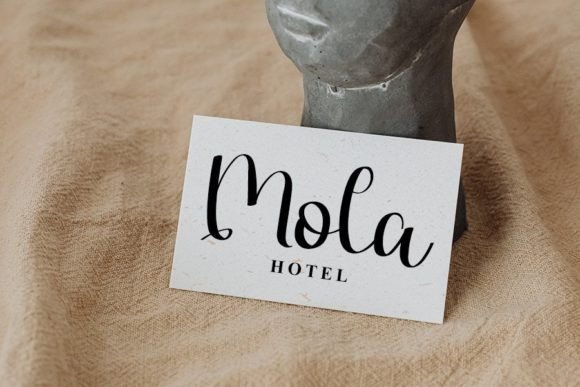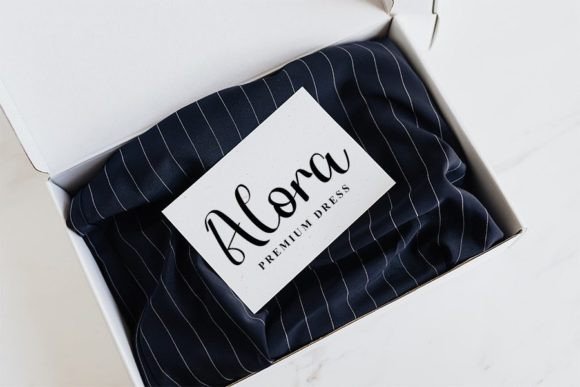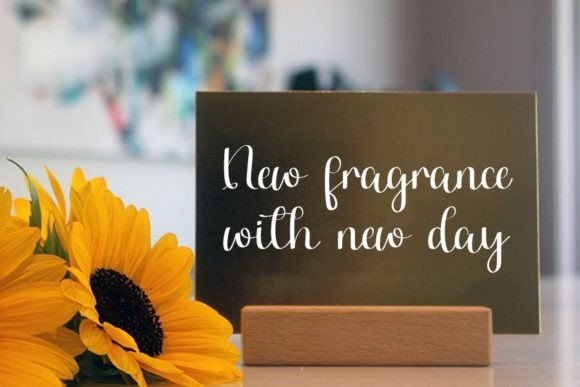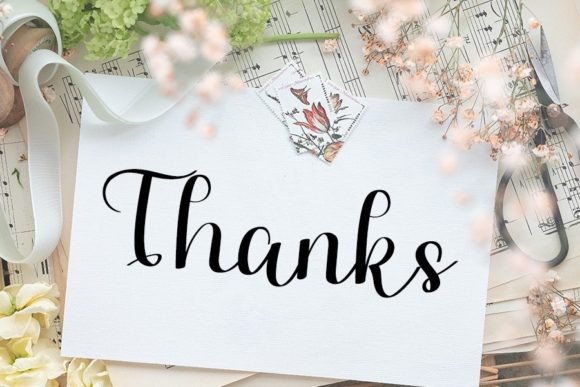
Introduction to Rainy Season Font Font
Fonts play a crucial role in design, and the Rainy Season Font font is a typeface that brings both character and versatility to any project. Whether you’re working on a branding project, a website, or a print design, the Rainy Season Font font offers a unique style that can elevate your work.
Rainy Season is a neat and beautiful handwritten font described by an elegant touch, perfect for your favorite projects.
Fall in love with its incredibly distinct and timeless style, and use it to create spectacular designs .
Key Features of Rainy Season Font Font
Why Choose Rainy Season Font Font?
The Rainy Season Font font is more than just a typeface – it’s a design tool that helps you communicate your message with style and clarity. Its unique character set and versatile design make it suitable for a wide range of applications, from elegant invitations to bold headlines.
With its carefully crafted letterforms and balanced proportions, the Rainy Season Font font ensures readability and visual appeal across all mediums.
What makes Rainy Season Font font special?
The Rainy Season Font font stands out with its unique design, exceptional readability, and versatility across various design applications.